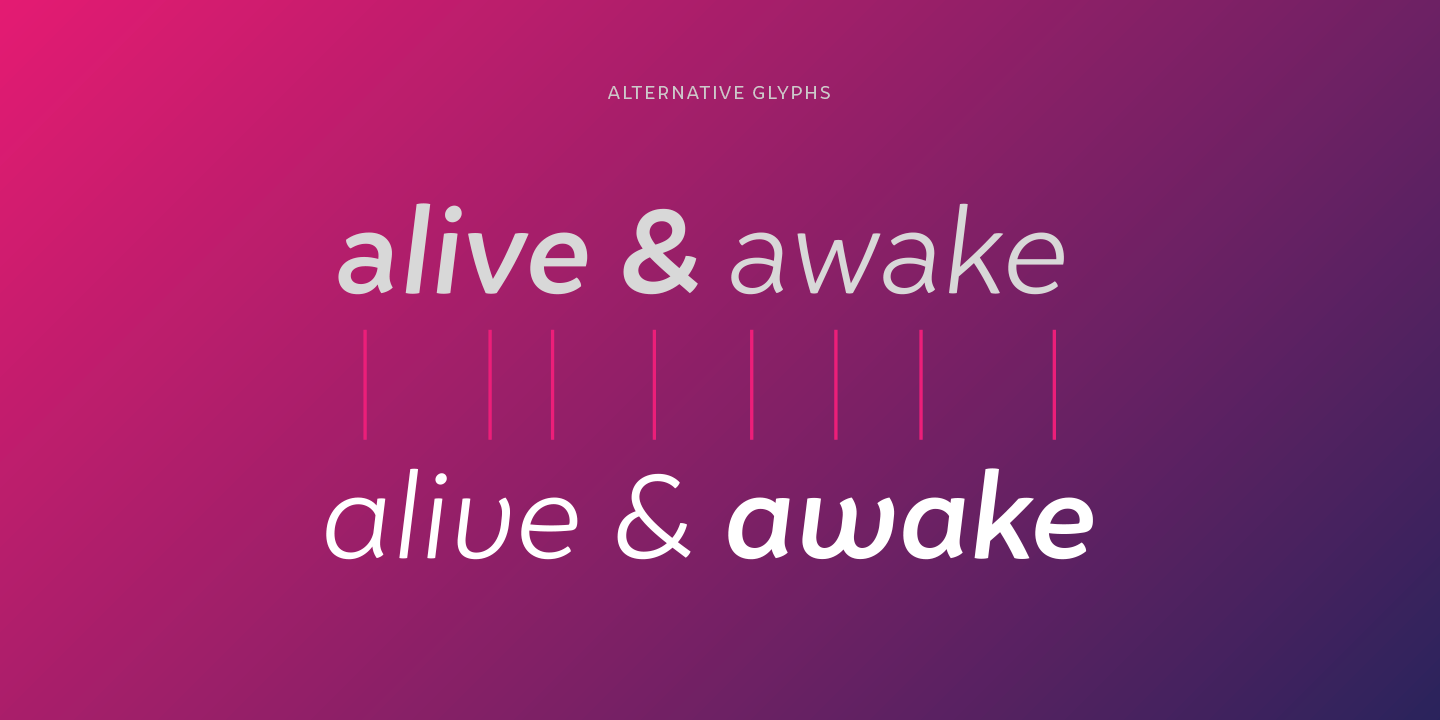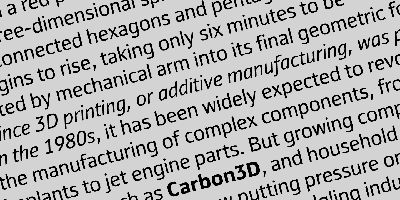
Igna Sans Font is ideal for contemporary branding, modern publications, digital interfaces, progressive packaging, creative agencies, tech companies, and innovative visual communications. This versatile typeface brings refined simplicity and functional elegance to forward-thinking design projects.
Igna Sans Font is exciting because it masterfully balances geometric clarity with humanist warmth, featuring carefully crafted letterforms that convey both technical precision and approachable sophistication while maintaining exceptional readability across diverse applications.
The Igna Sans Font family includes comprehensive weight ranges from Light to Black, complete with italic styles and extended character support. This versatile collection provides designers with complete typographic flexibility for creating cohesive and dynamic contemporary brand systems.
Igna Sans Font Free Download provides access to a thoughtfully designed typeface that represents the perfect synthesis of functional design and aesthetic refinement. This sophisticated font features meticulously engineered letterforms with balanced proportions and optimized spacing that ensure exceptional performance across all contemporary applications and media platforms. The typeface showcases clean construction with subtle character details that create visual interest while maintaining professional reliability and broad accessibility. Its versatile character makes it particularly suitable for modern brands and progressive organizations that require typography capable of conveying innovation, clarity, and contemporary sophistication. Igna Sans Font delivers consistent performance across various digital and print applications while maintaining strong brand presence and visual coherence. The font's contemporary design and technical excellence ensure superior results that enhance communication effectiveness while providing users with a refined and engaging typographic experience that reflects modern design principles and functional beauty.